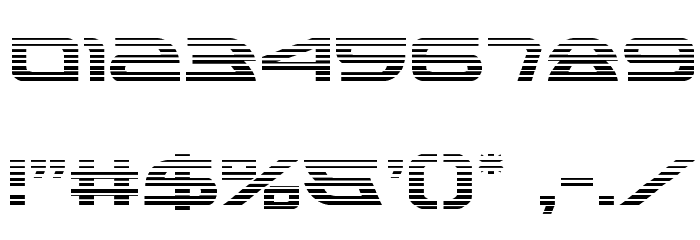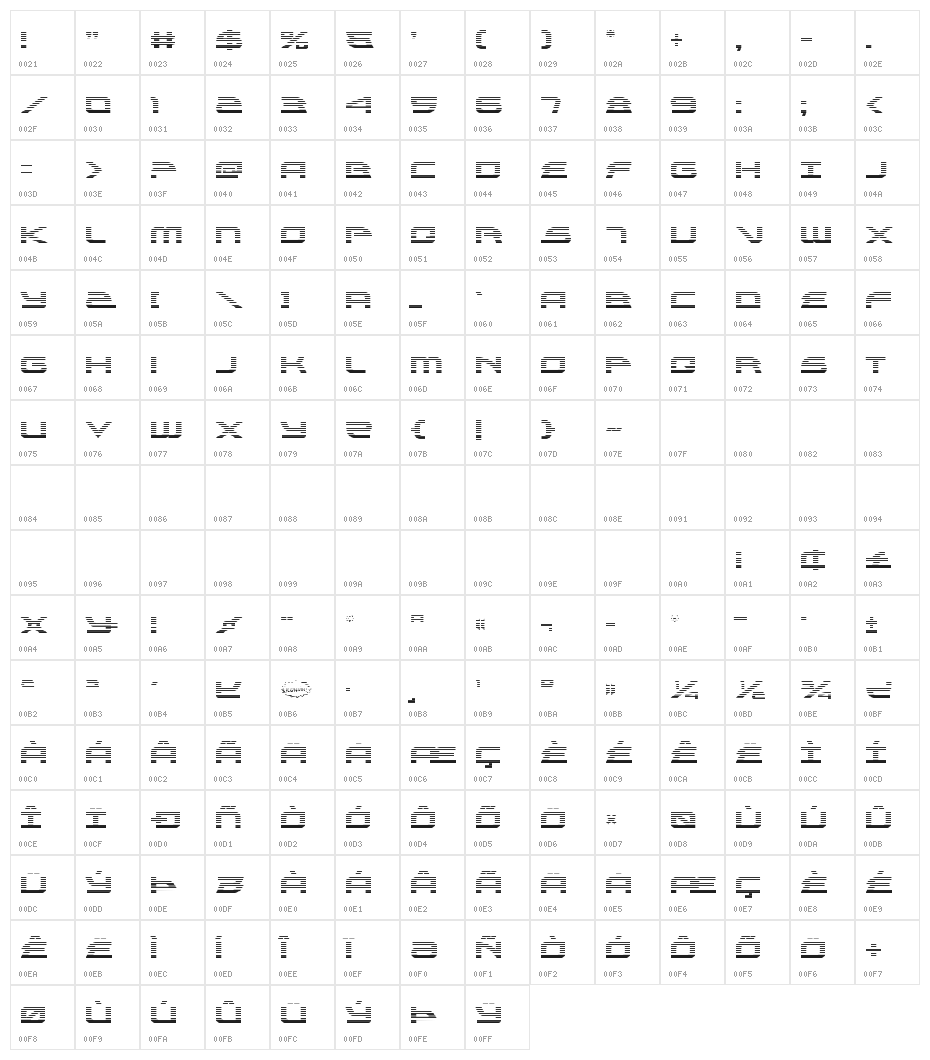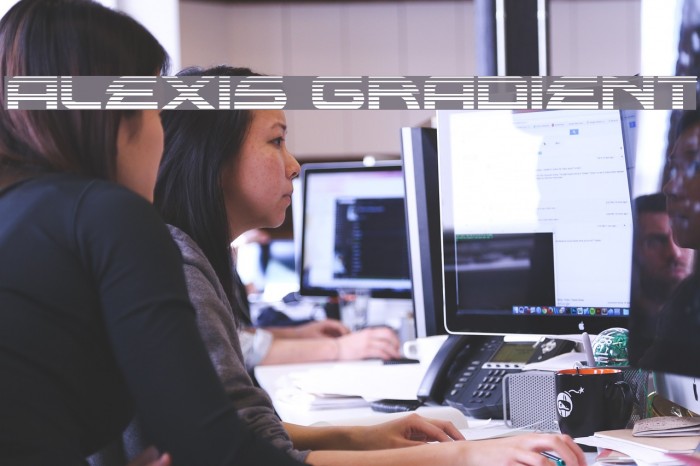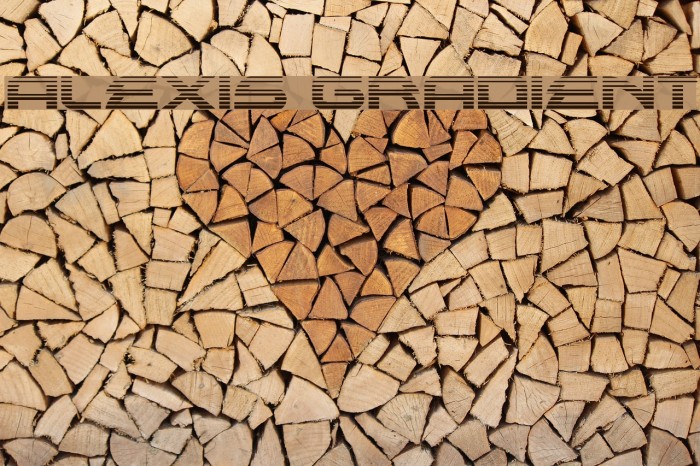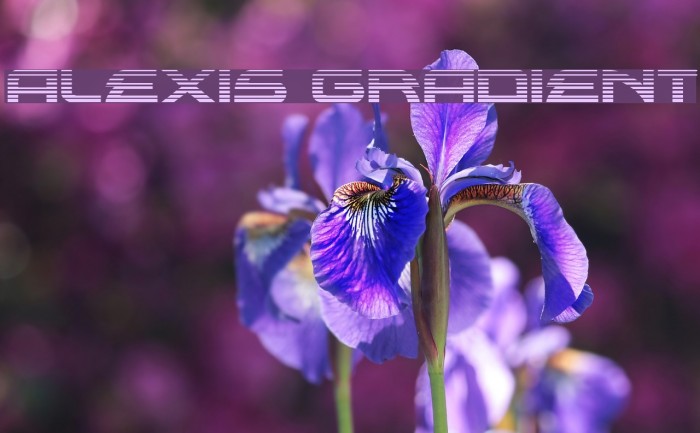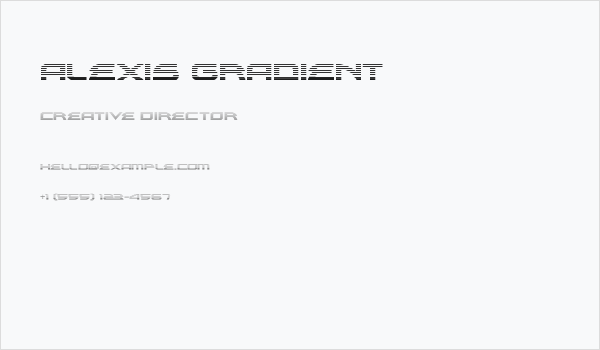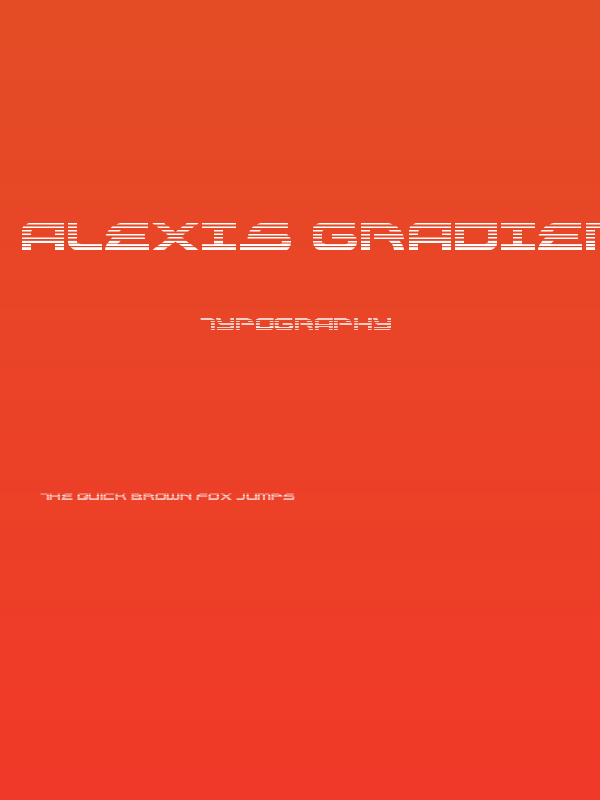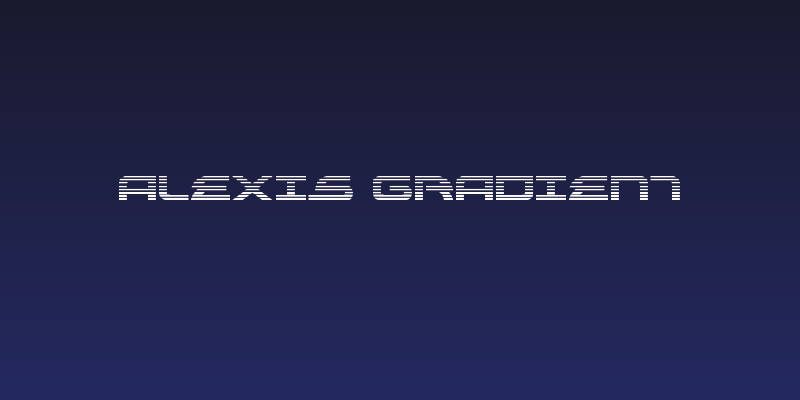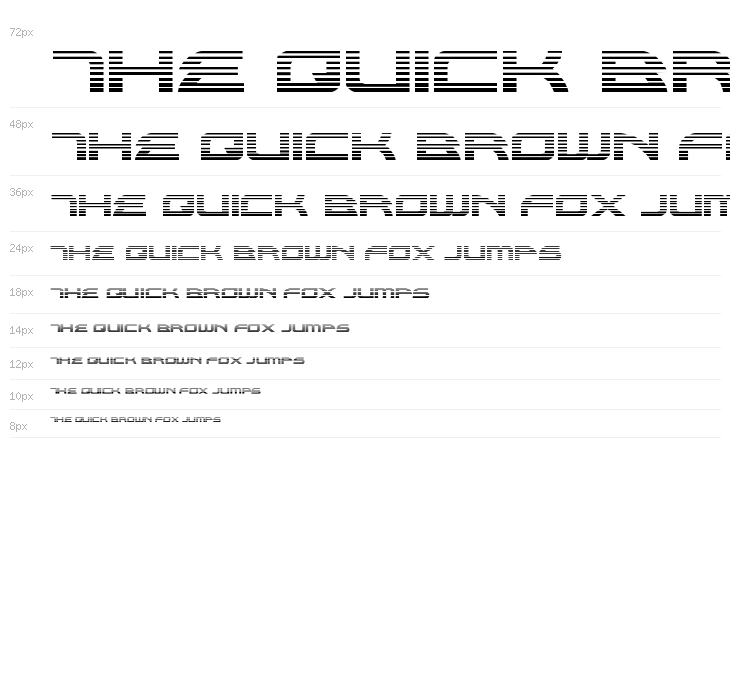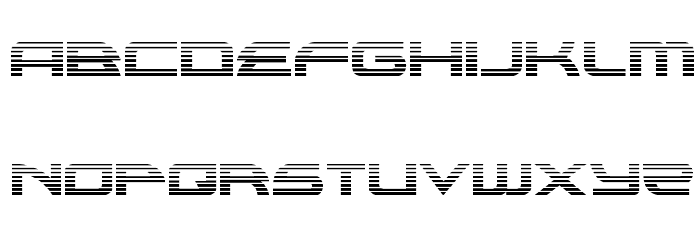
Alexis Gradient Font
Alexis Gradient Description
This font features a unique, futuristic design characterized by horizontal lines that create a gradient effect across each character. The letters are constructed with a series of parallel lines, giving them a modern and digital appearance. The uppercase and lowercase letters maintain a consistent style, with the lines varying in thickness to form each character. Numbers and special characters follow the same design principle, ensuring uniformity across the font. The overall look is sleek and contemporary, making it suitable for projects that require a cutting-edge aesthetic.